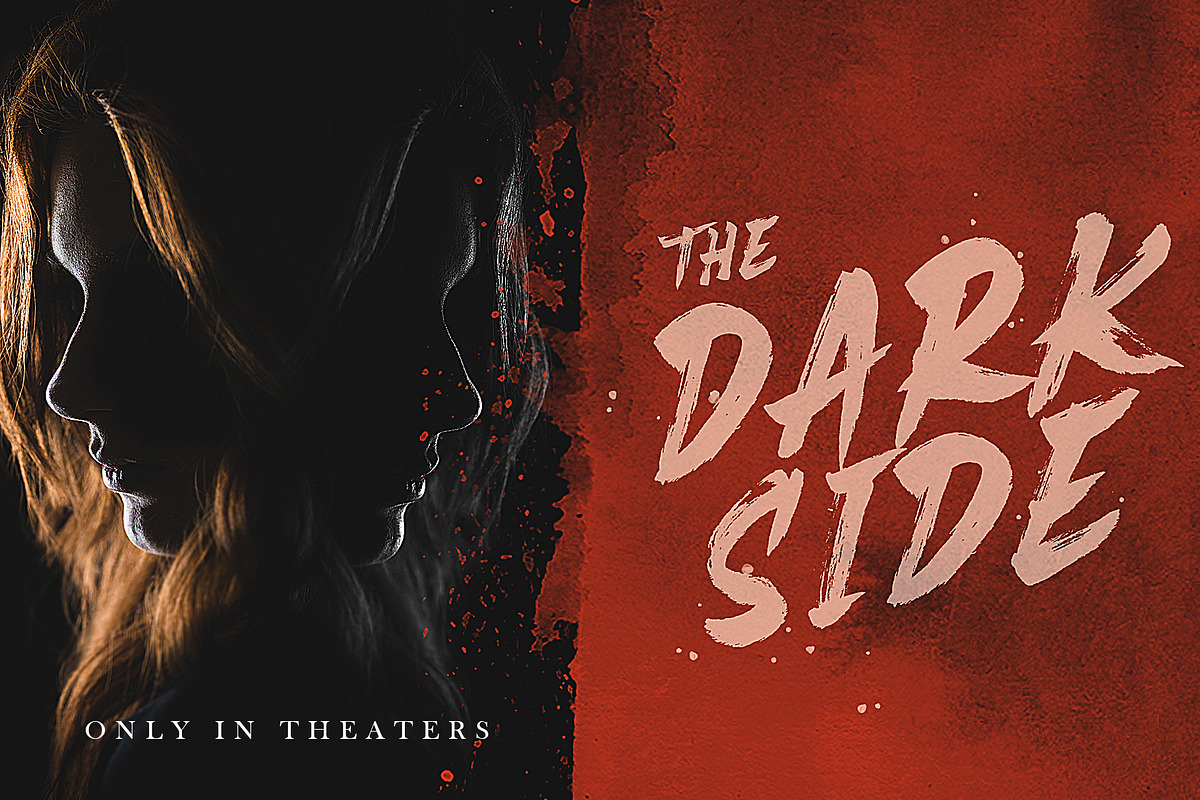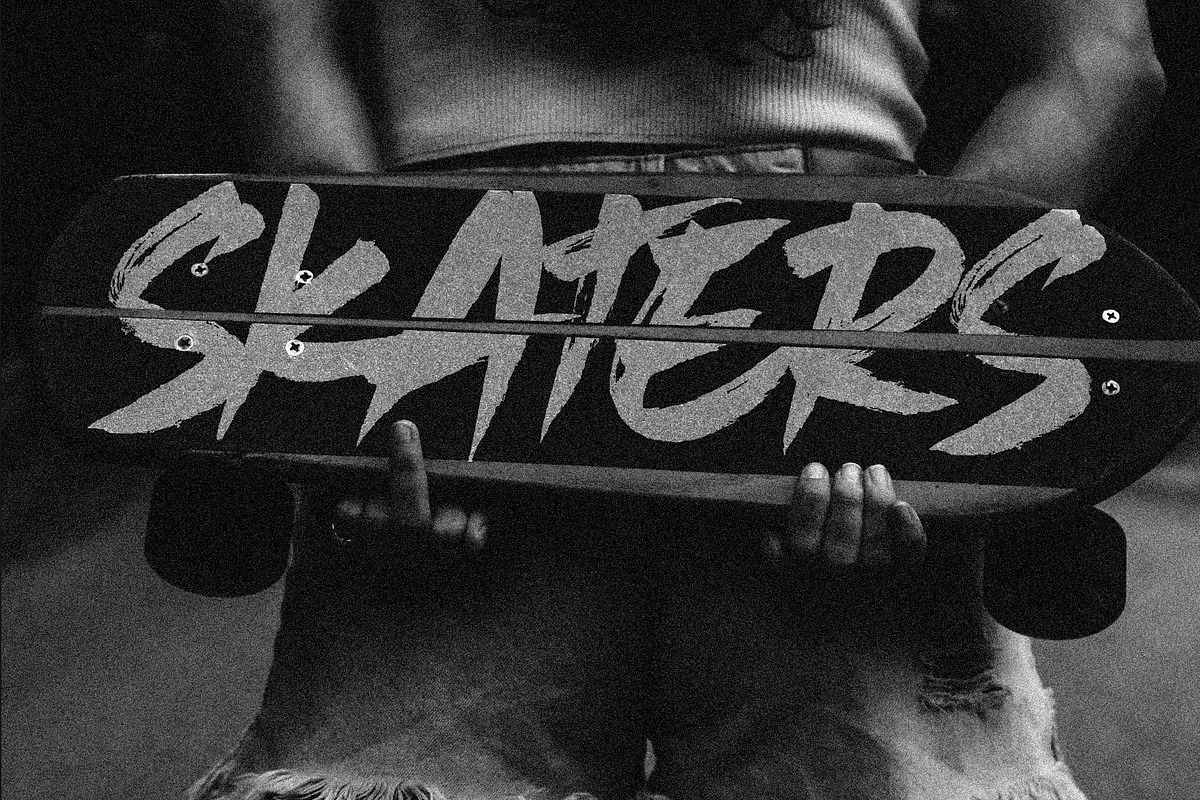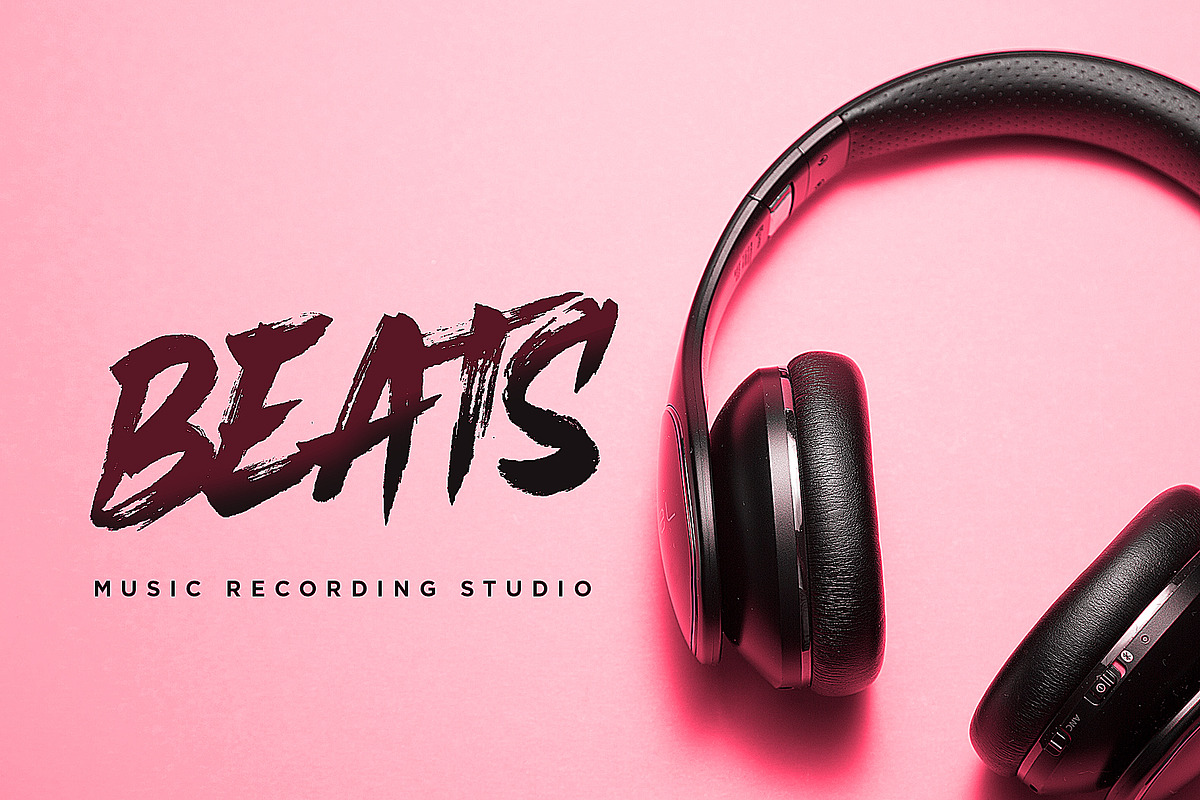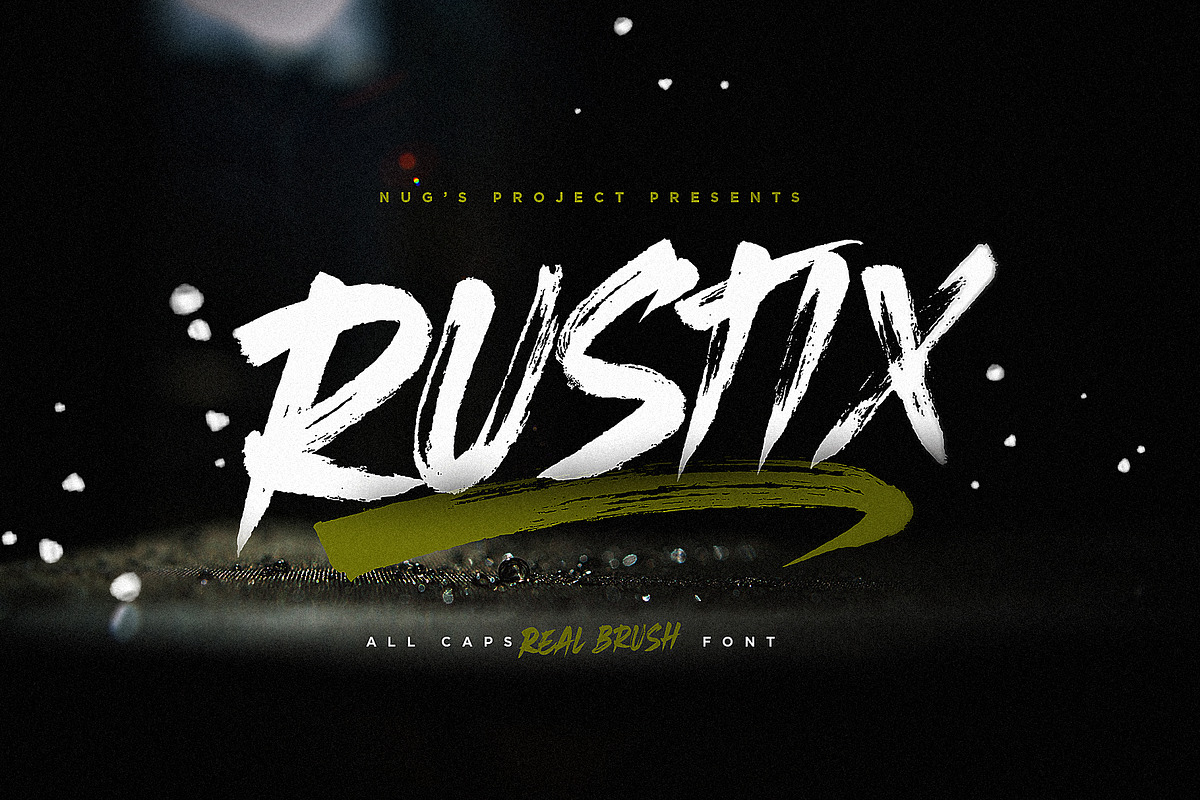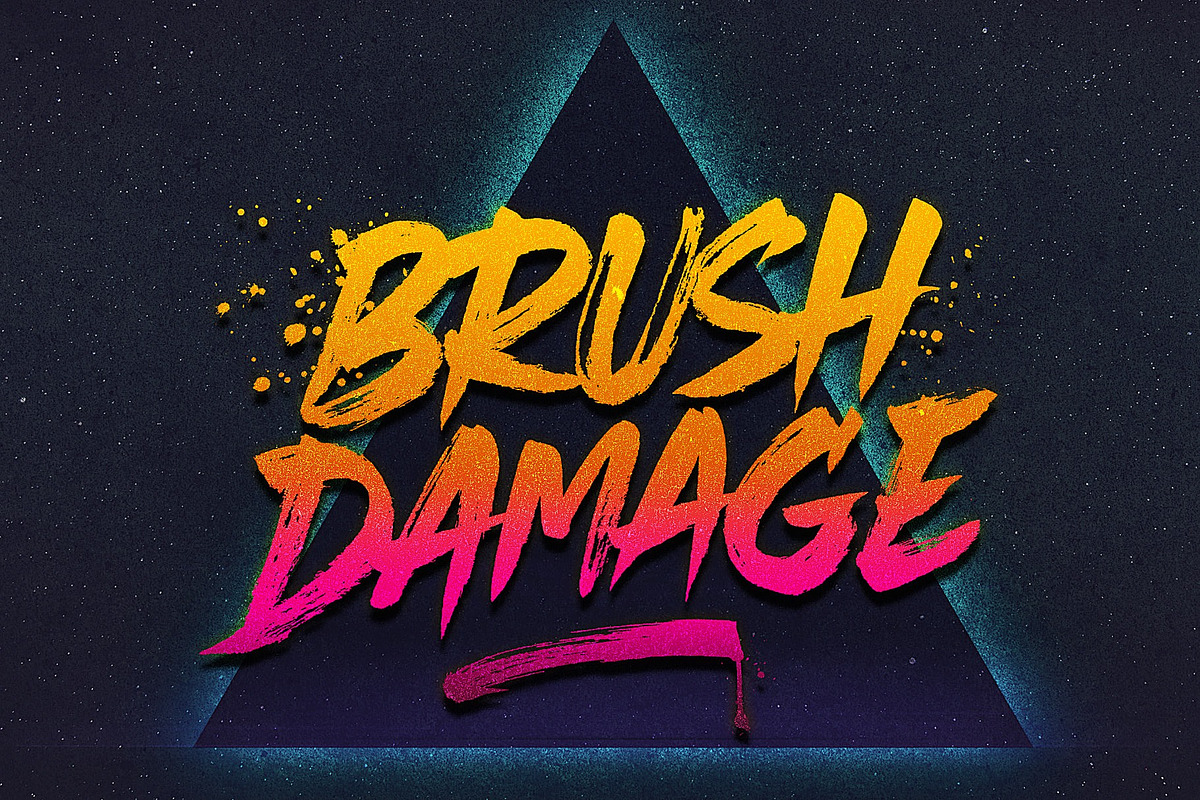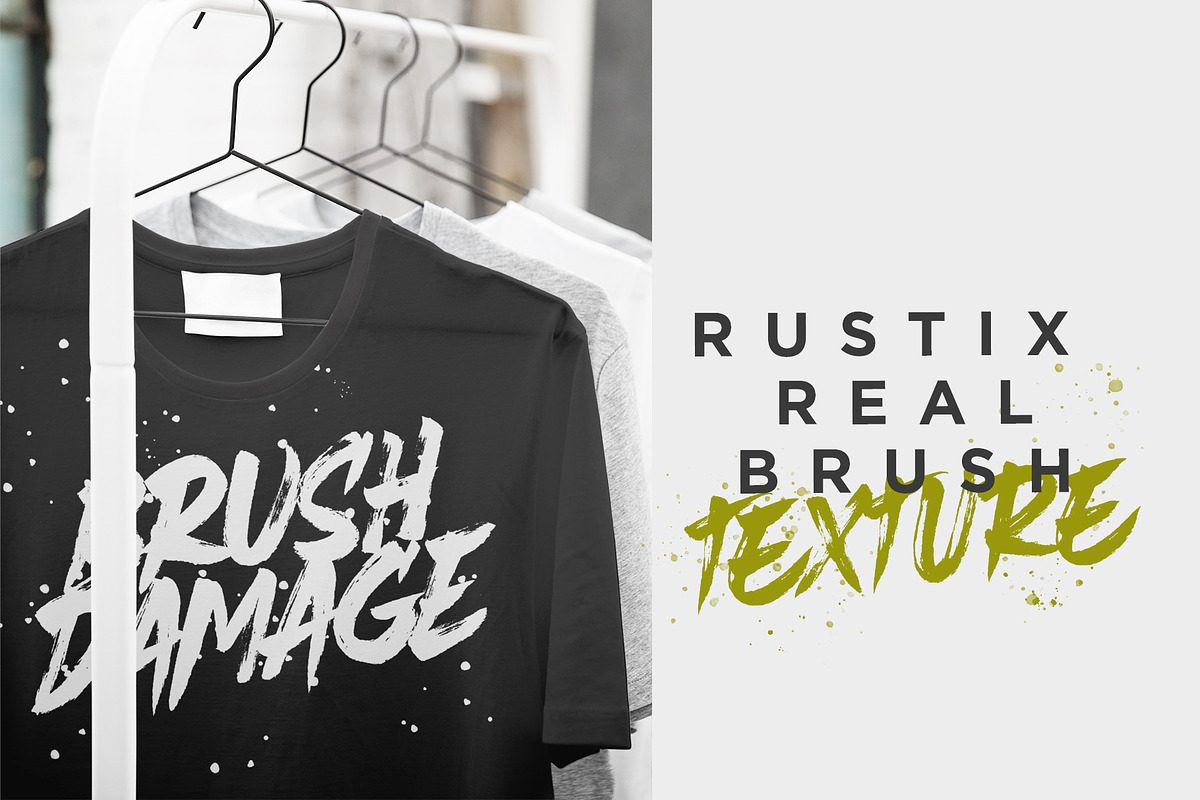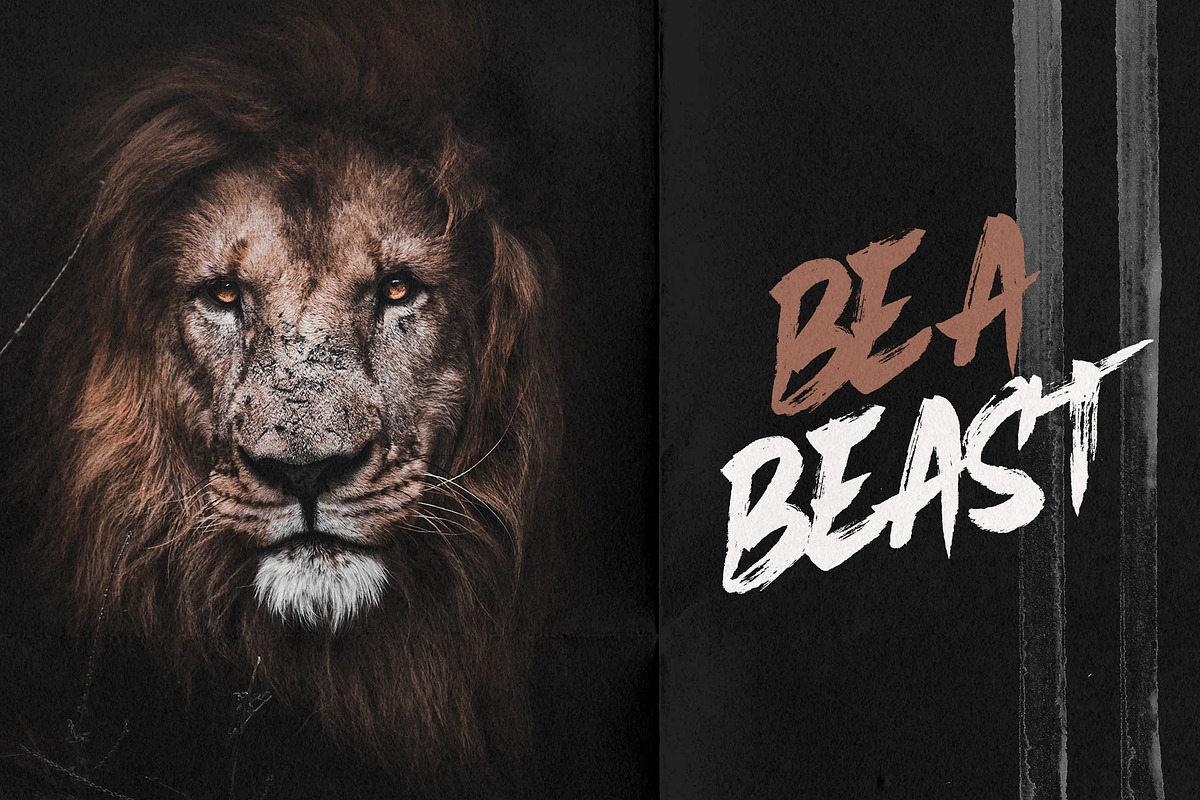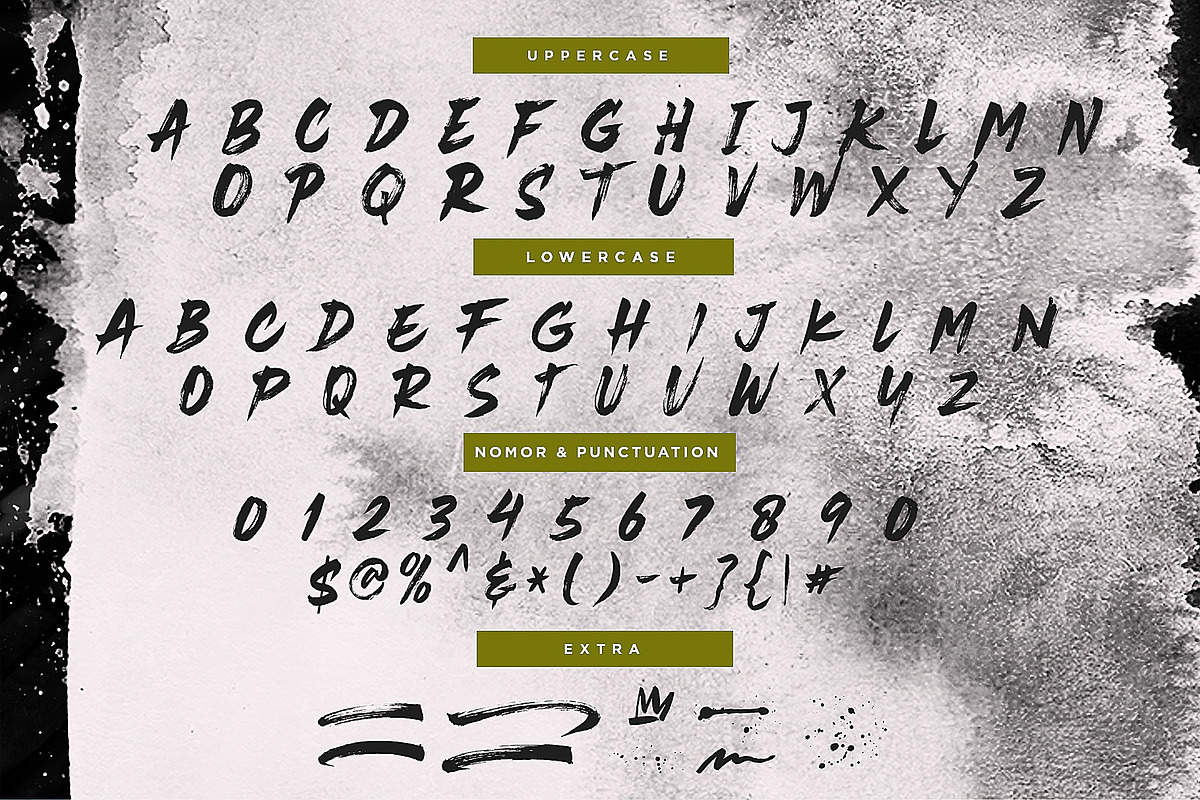
Rustix Brush font
Rustix is a brush stroke font with a very deep personality. The font is perfect for posters, t-shirts, pillows, bags, mugs, badges, headings, logos, invitations and much more!
Rustix Brush font by NUGS fits naturally into Branding, posters, packaging, typography.